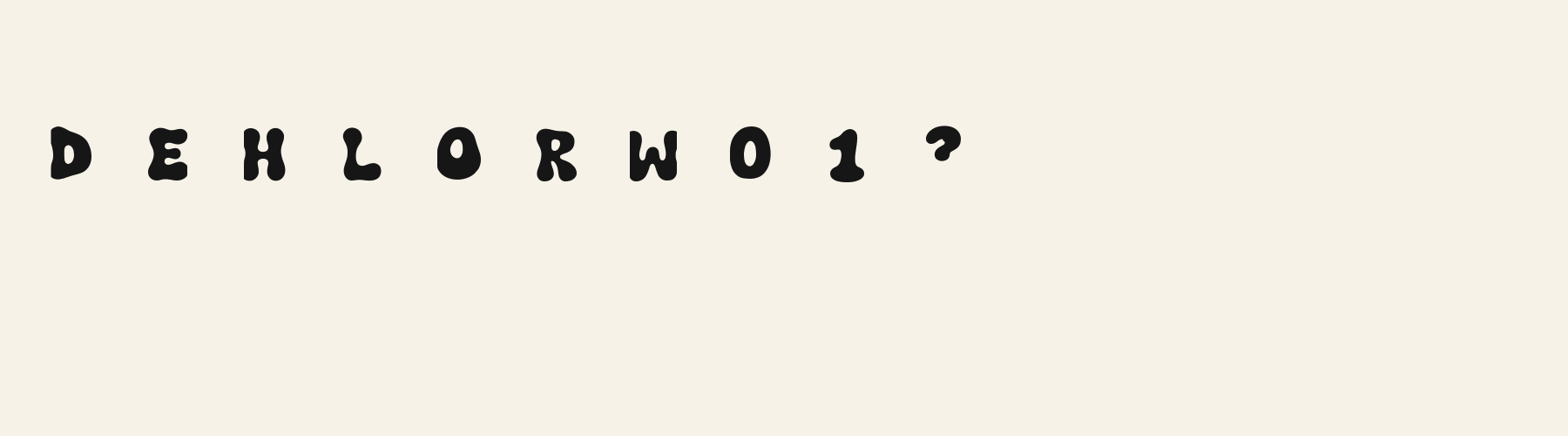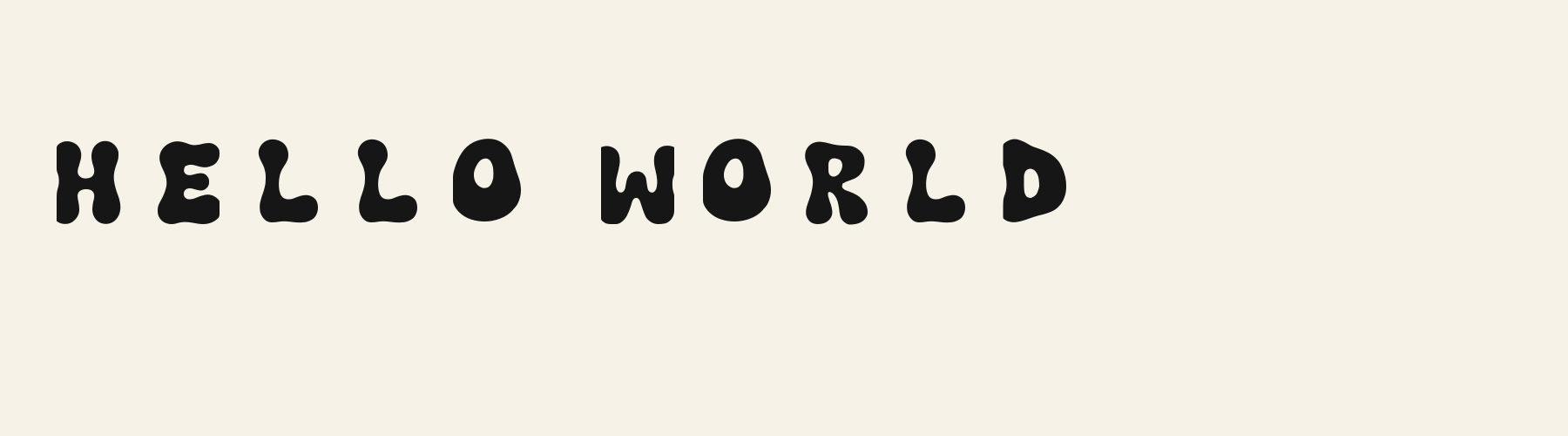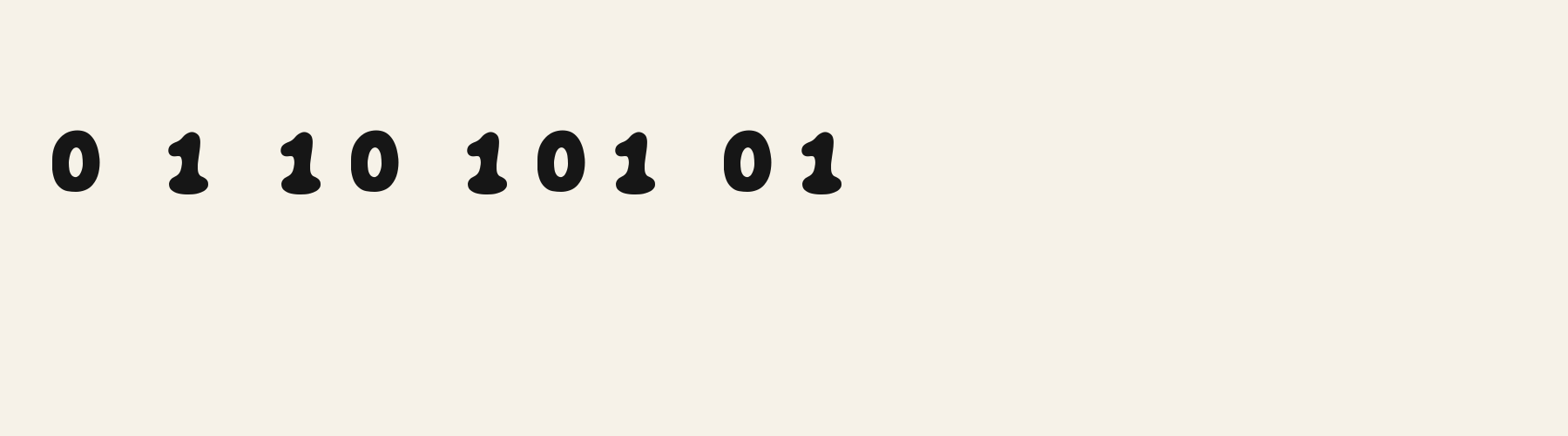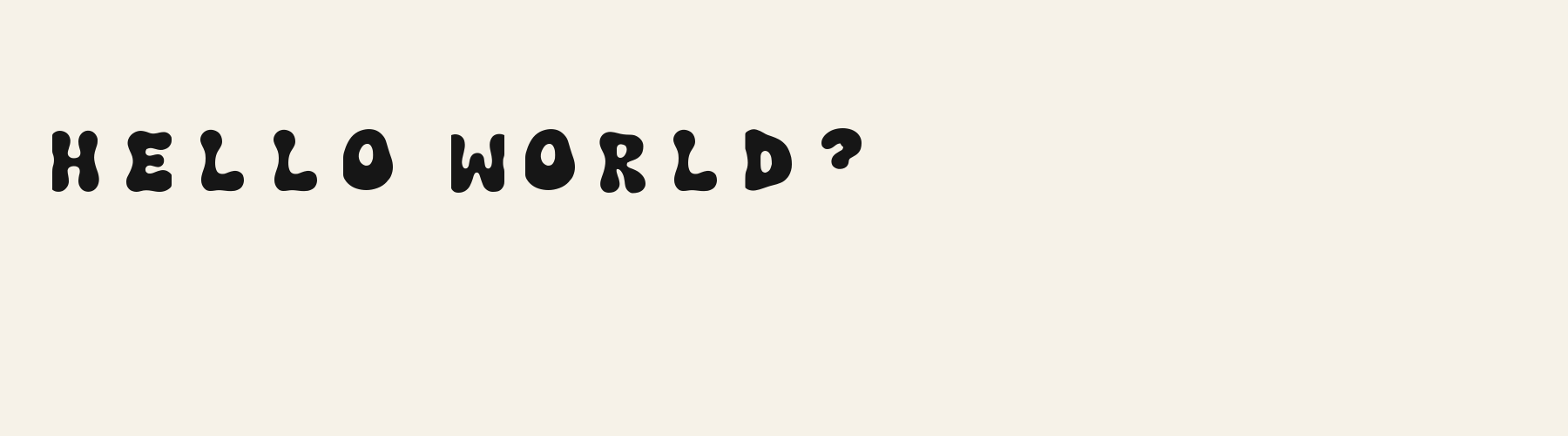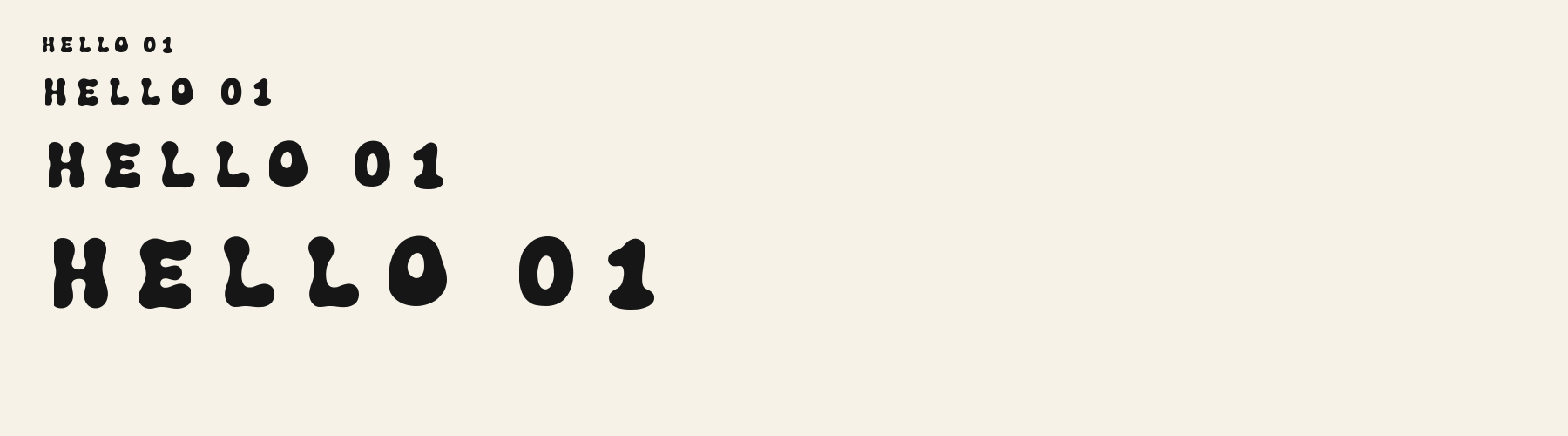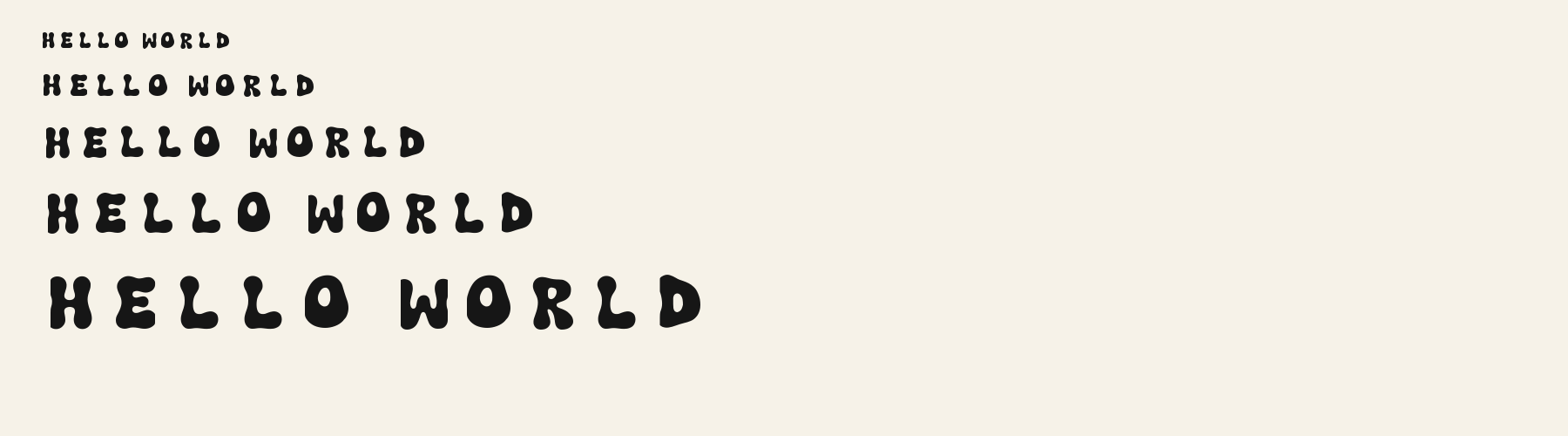
Bubble Gel Wobble gives uppercase lettering a heavy, elastic silhouette, with broad bulges joined by narrower waists.
Bubble Gel Wobble gives uppercase lettering a heavy, elastic silhouette, with broad bulges joined by narrower waists. The H squeezes inward around its crossbar, leaving rounded shoulders and feet. The L has a swollen upper end and a low foot that curls gently upward at the tip. The R holds a small rounded counter above a thick, softly spreading diagonal leg. Solid strokes surround clean openings, while the edges drift through uneven curves rather than repeated scallops. The compact O sits lower than its neighbors, adding a bobbing rhythm to words. Together, these details give short phrases a soft, mischievous mood.
Check your actual wording for tight gaps around swollen bowls and feet, and inspect the small counters when reducing the preview. The specimens show uppercase Latin forms; preview lowercase, accents, and any other scripts separately, checking for missing glyphs or fallback.
Try this face for a short heading, with a plain sans serif for supporting text and labels. Its swollen terminals and squeezed joins already create a strong rhythm, so a quieter companion could help longer information stay easy to scan.
Compare the original spacing with a slightly wider setting. Watch the gaps beside the broad O and the projecting feet of L: extra space changes how strongly the separate elastic shapes gather into words.
Bubble Gel Wobble has broad, flowing bulges with relatively smooth edges. Its L bends into a swollen foot, and its O encloses a smooth oval opening. Choose it when the lettering should feel soft and fluid.
Bubble Cloud Lobed builds its edges from repeated rounded lobes, visible along the L stems and around both edges of O. Choose it when a clustered, cloudlike silhouette should supply more of the lettering's texture.
Its lowercase sits low: the x-height is 68.5% of the cap height, where the median for display fonts is 74.4%, lower than 99 of the 116 other display fonts. Ascenders on b, d, h, k and l line up with the capitals (100.8% of their height), and descenders on g, j, p, q and y drop 13.8% of the cap height below the baseline, shallower than 109 of the 116 other display fonts. Bubble Gel Wobble runs 11.4% narrower than the median for display fonts: an average lowercase letter, spacing included, is 77.2% as wide as the capitals are tall (an average capital, 86.9%). The o is close to a circle, 1.01 times as wide as it is tall, and T is the widest capital, at 1.09 times the width of H. The O stops 8.6% of the cap height short of H and dips 1.1% below the baseline.
The letters stand upright, leaning less than 2.5° either way. Ink covers 46.7% of each lowercase letter's box (its advance width by the cap height), darker than 84 of the 116 other display fonts. It is close to monoline, with the sides of o and O 1.02 times as thick as their tops and bottoms.
Its 95 characters include 52 Latin letters, plus 43 figures, punctuation marks and symbols; there are no accented Latin letters beyond A to Z. The word space measures 56.1% of the cap height, and the blank space either side of a lowercase letter takes up 12.7% of its width. The font carries no kerning, so spacing comes from each letter’s own side bearings. The figures have different widths, so columns of numbers set in Bubble Gel Wobble will not line up exactly.